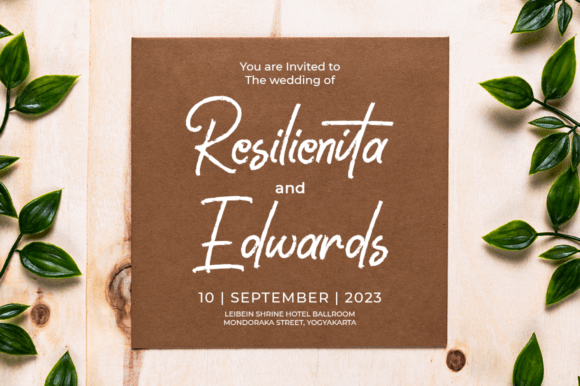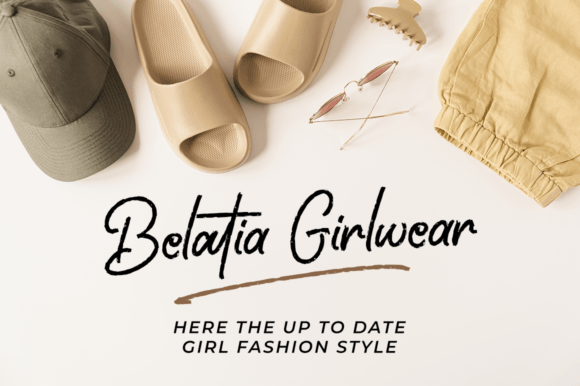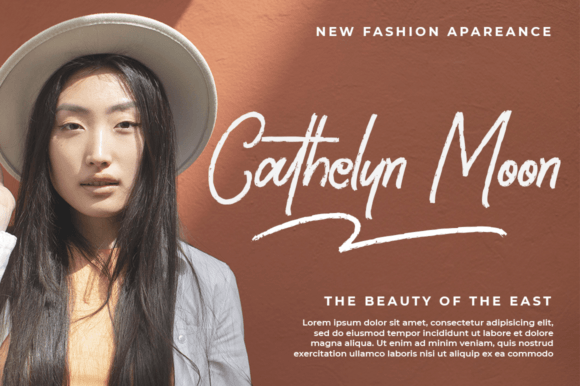
Introduction to Restharted Font
Remember that moment when you stumbled upon the perfect font for your creative project? The one that made your design pop and stood out from the crowd? For designers, that feeling is priceless, and it’s exactly what the Restharted Font aims to deliver.
As a gorgeous and bold handwritten brush font, Restharted Font is crafted to give your headlines and logotype projects a stylish touch. Its strong, confident, and dynamic feel can add tons of nostalgic character to your designs, making it a valuable addition to any design resource.
With its high quality and versatility, the Restharted Font is an ideal choice for designers looking to elevate their creative projects. Whether you’re working on a free download or a commercial design, this font is sure to make a statement. Plus, with its transparent background, you can easily integrate it into any design without worrying about distracting backgrounds.
Key Features of Restharted Font
- Features a unique, modern design with a transparent background, allowing for easy customization and versatility.
- Includes a range of glyphs and characters, making it an ideal choice for designers working on complex creative projects.
- Designed to be highly legible and readable, even at smaller font sizes, making it perfect for use in body text or headings.
Honest Review: Restharted Font
I recently had the opportunity to work with the Restharted Font, and I must say it’s been a game-changer for my creative project. This free download has been a lifesaver, offering high-quality typography that elevates my designs to the next level.
One of the things that works well with the Restharted Font is its versatility. The font comes with a transparent background, making it easy to customize and pair with any design resource. The design is clean, modern, and sophisticated, perfect for a wide range of creative projects.
- ✨ High-quality typography that adds a professional touch to designs
- ✨ Versatile and easy to customize
While the Restharted Font is an excellent addition to any designer’s toolkit, there are a few limitations to consider. The font may not be suitable for projects that require a more playful or whimsical tone. Additionally, the font’s design may not be as bold or striking as some other options on the market.
Overall, I’m thoroughly impressed with the Restharted Font. Its high-quality design, versatility, and affordability make it a valuable resource for designers working on creative projects. While it may not be perfect for every project, I highly recommend giving it a try.
Getting the Most Out of Restharted Font
To get the most out of the Restharted Font, use it in a creative project that requires a high-quality, unique font. The font’s transparent background makes it perfect for use on images or backgrounds.
The Restharted Font is perfect for use in a variety of design projects, including branding, marketing materials, and digital graphics. Its high-quality design and transparent background make it a valuable design resource.